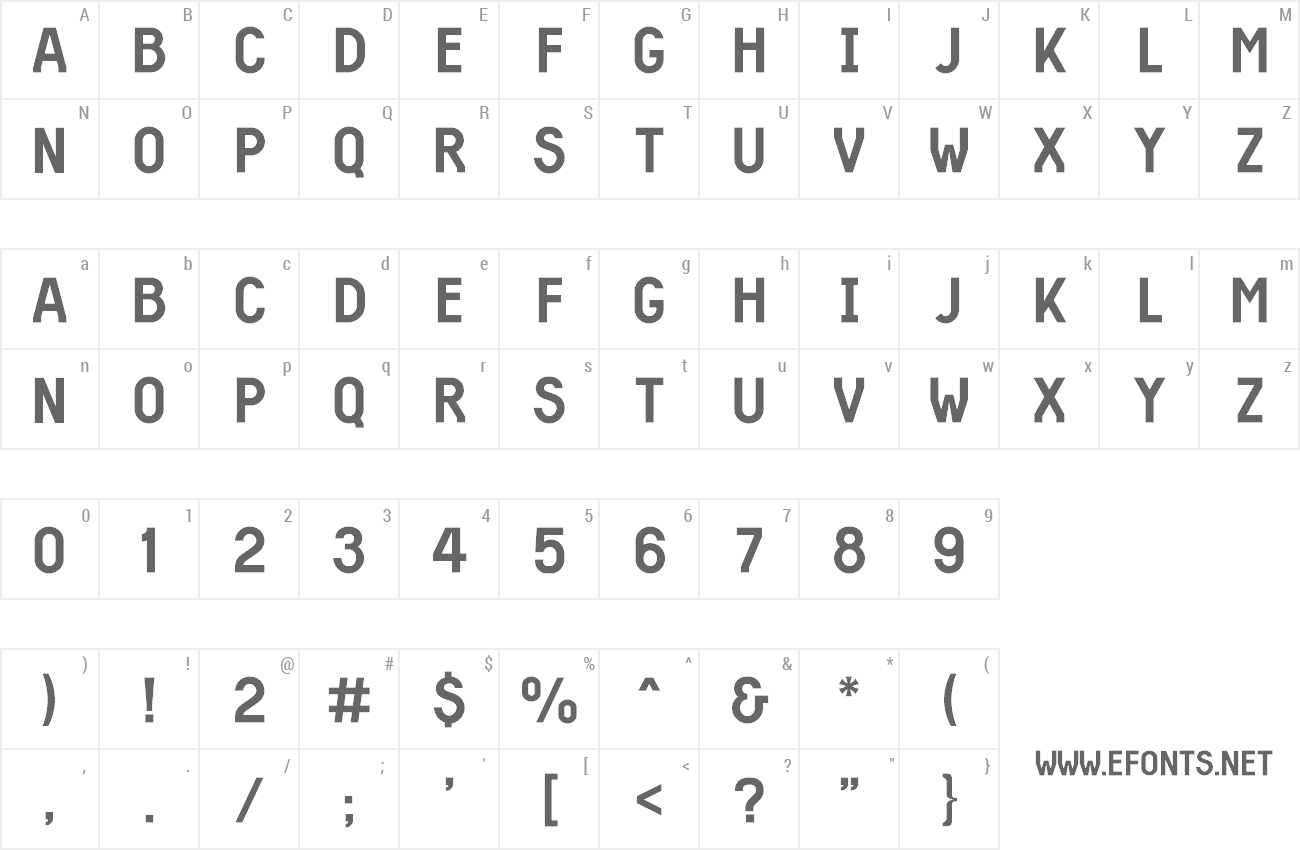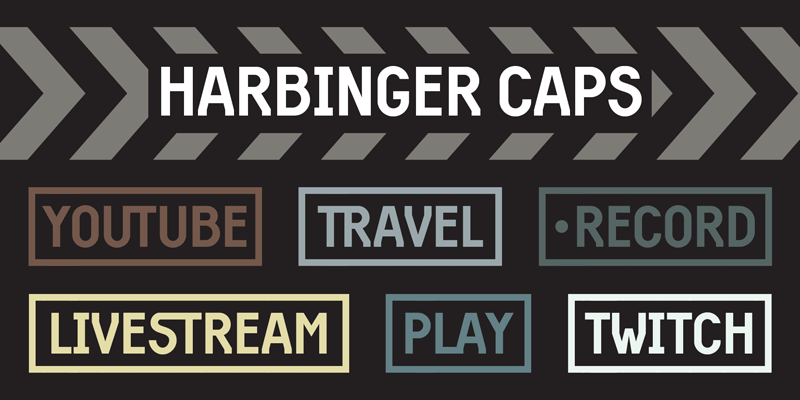
Preview and download Harbinger Caps Font. Created by Herman S. in Basic Sans serif styles with 100% Free license.
A simple display font meant for video titles or other similar use. Free for commercial and personal use. |